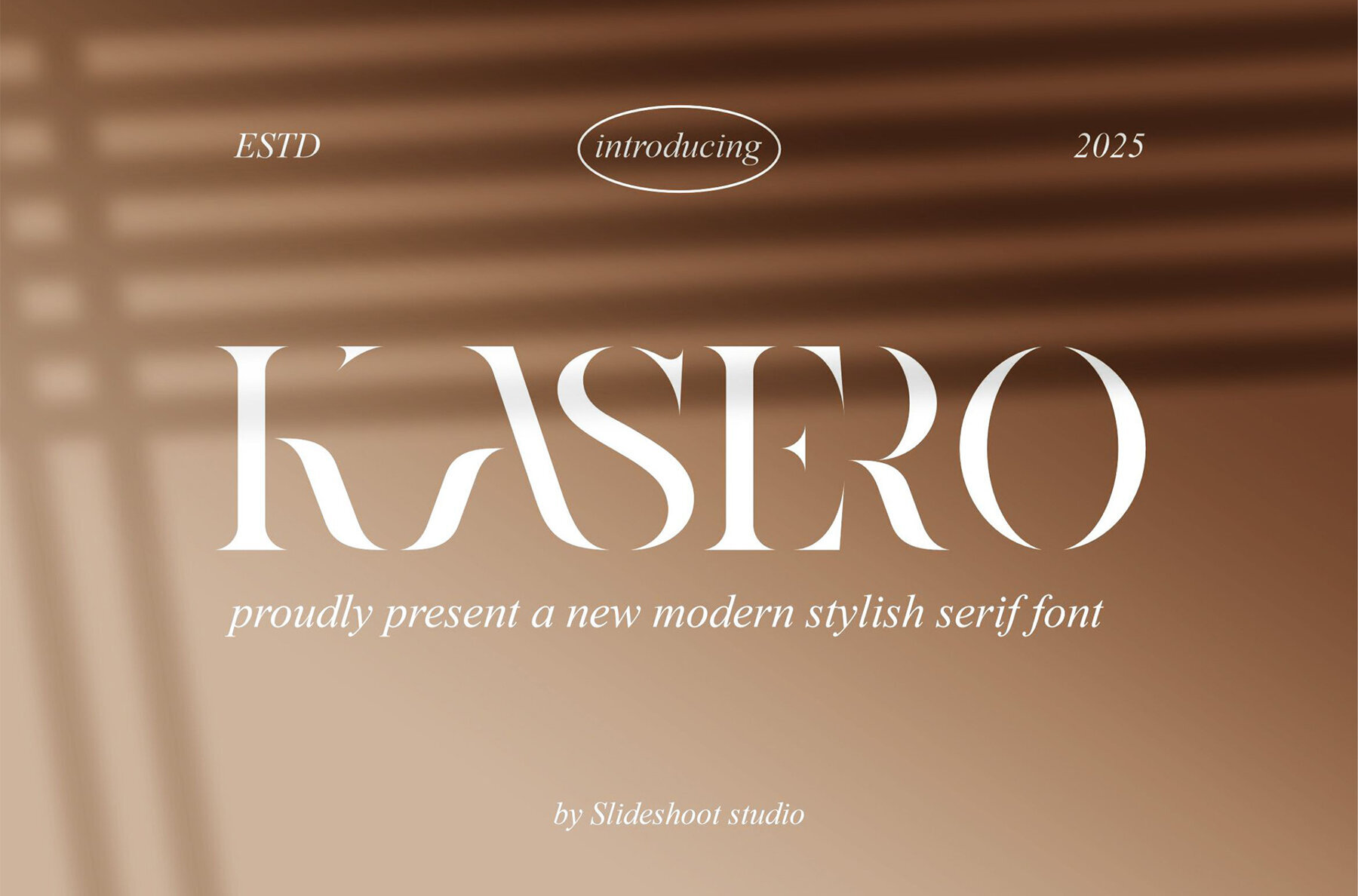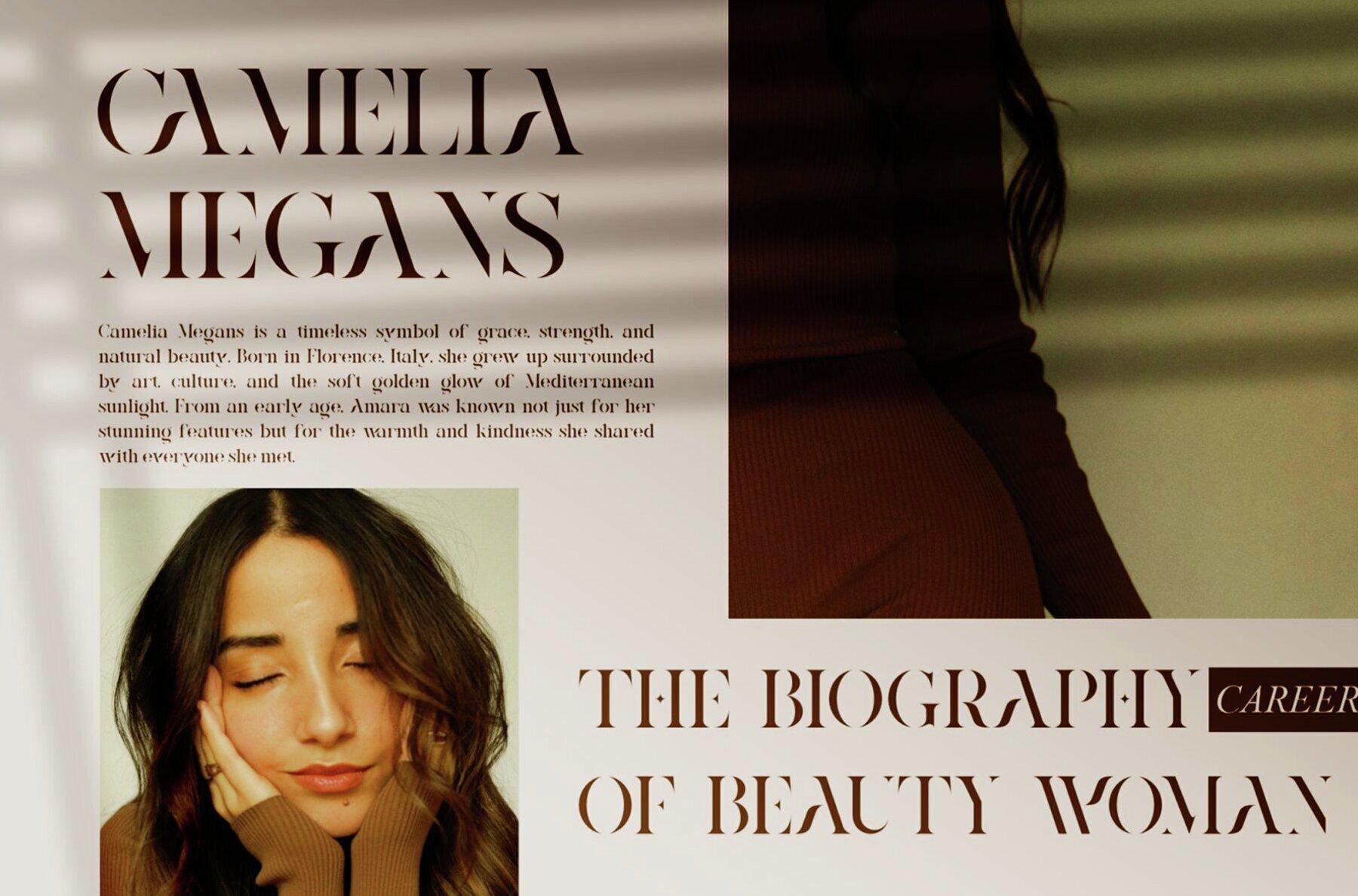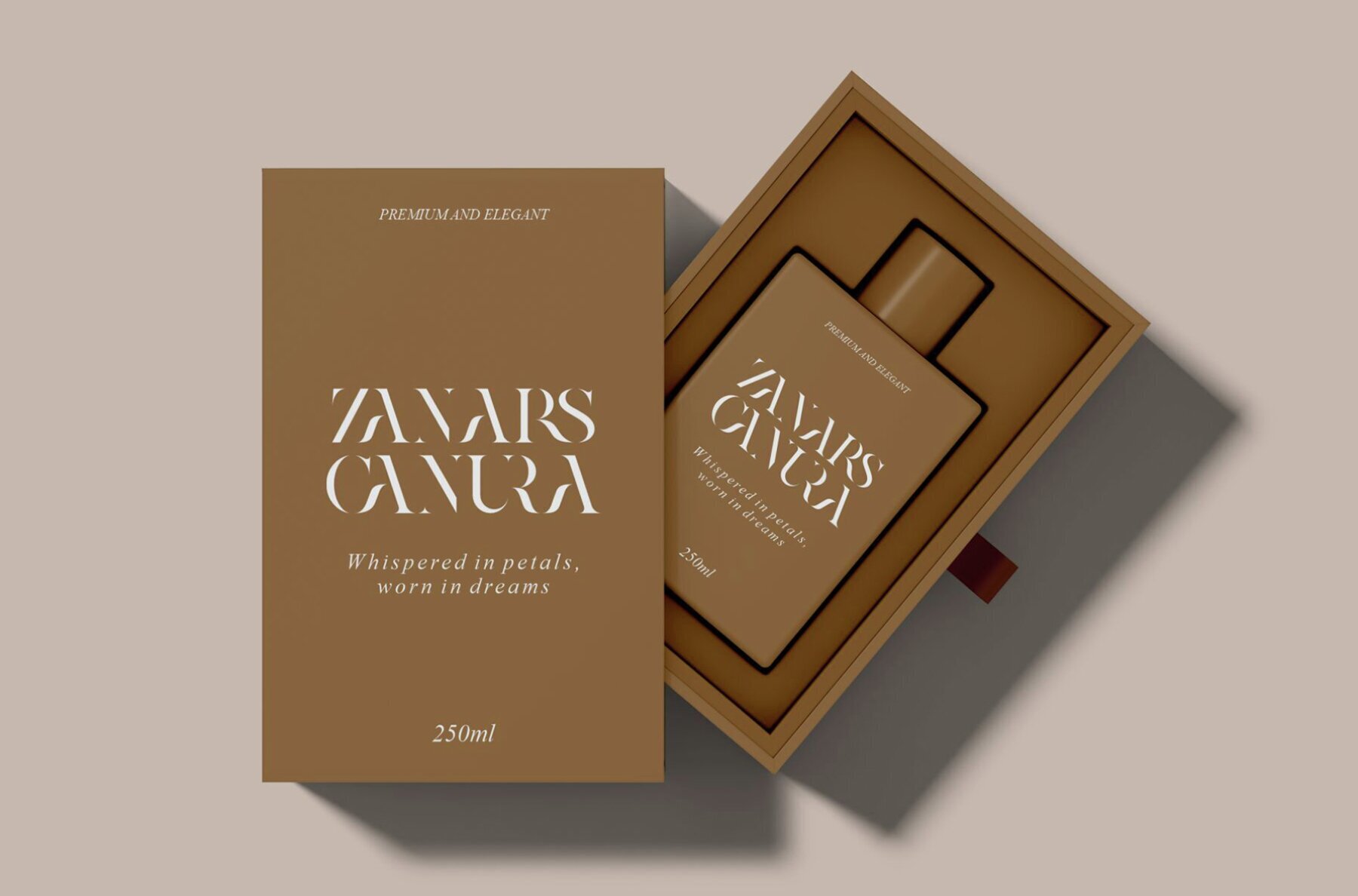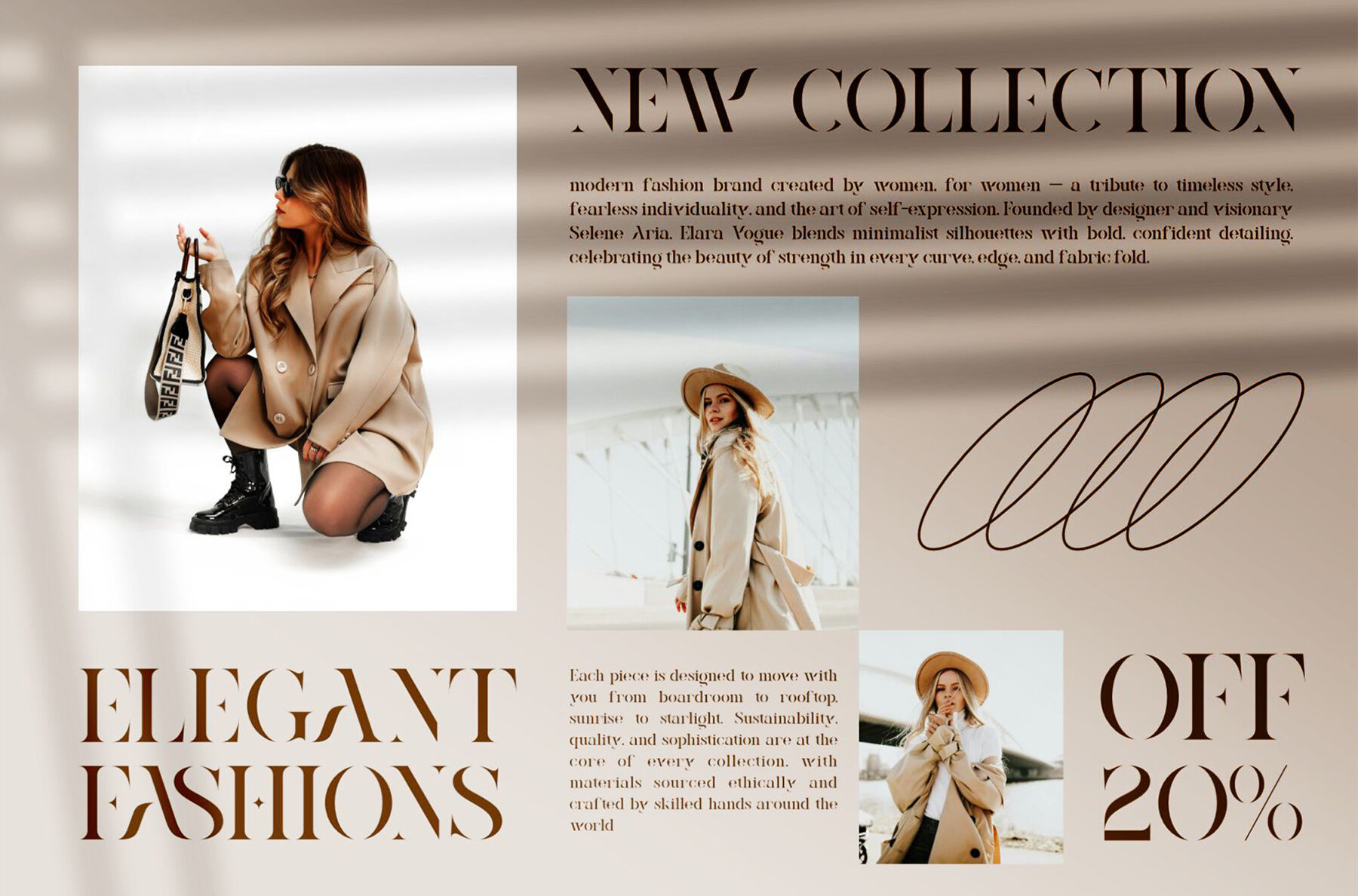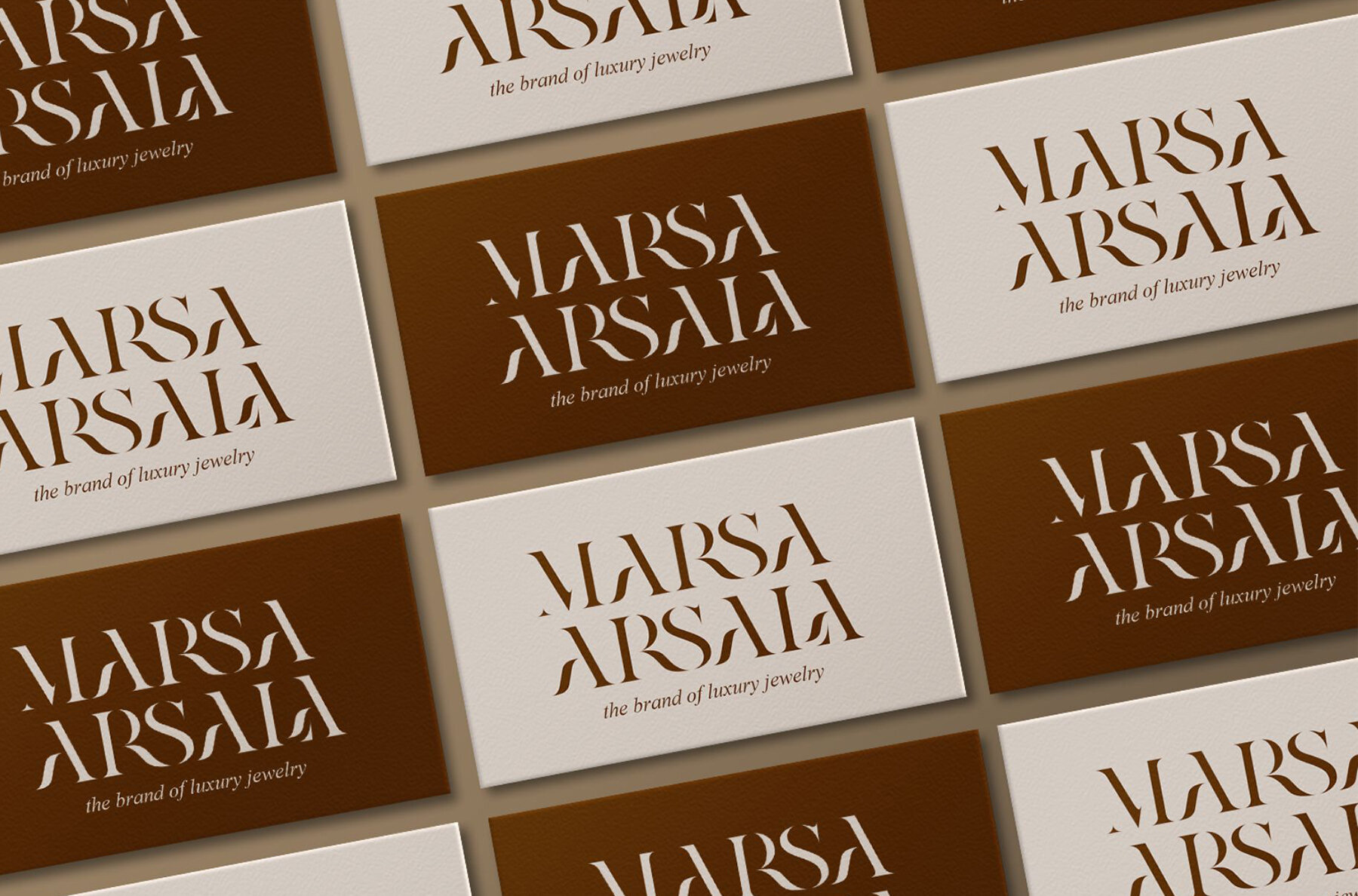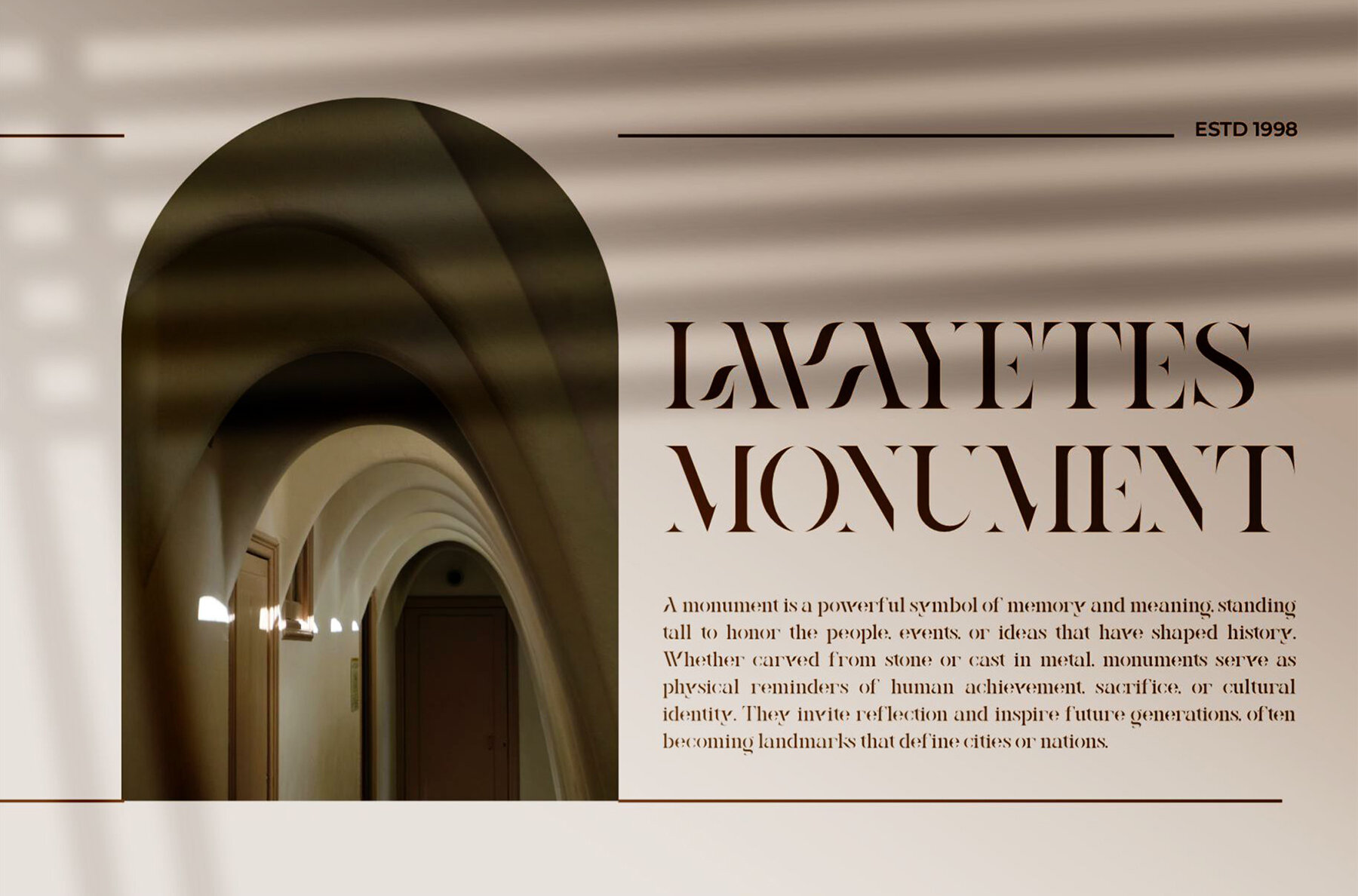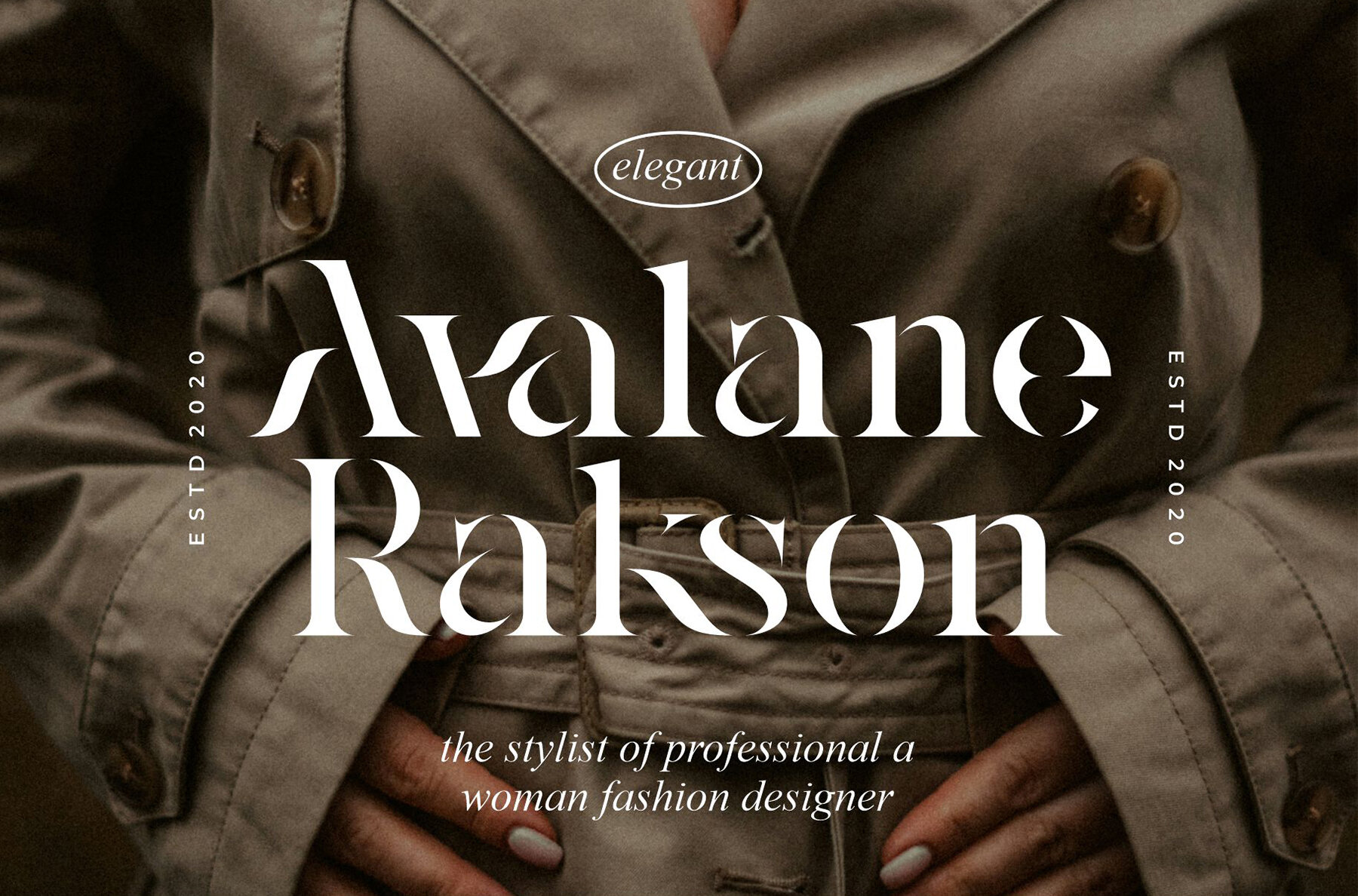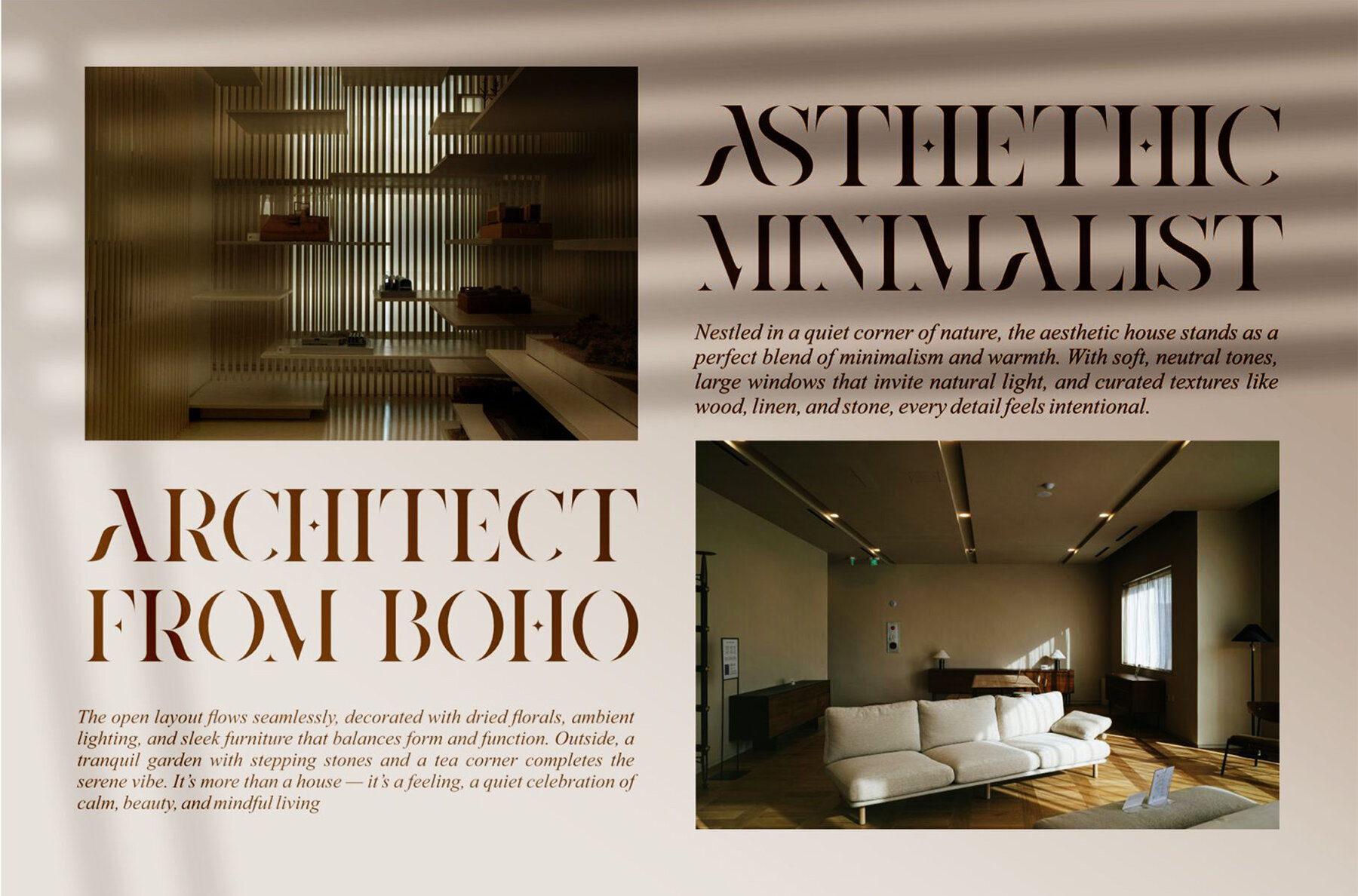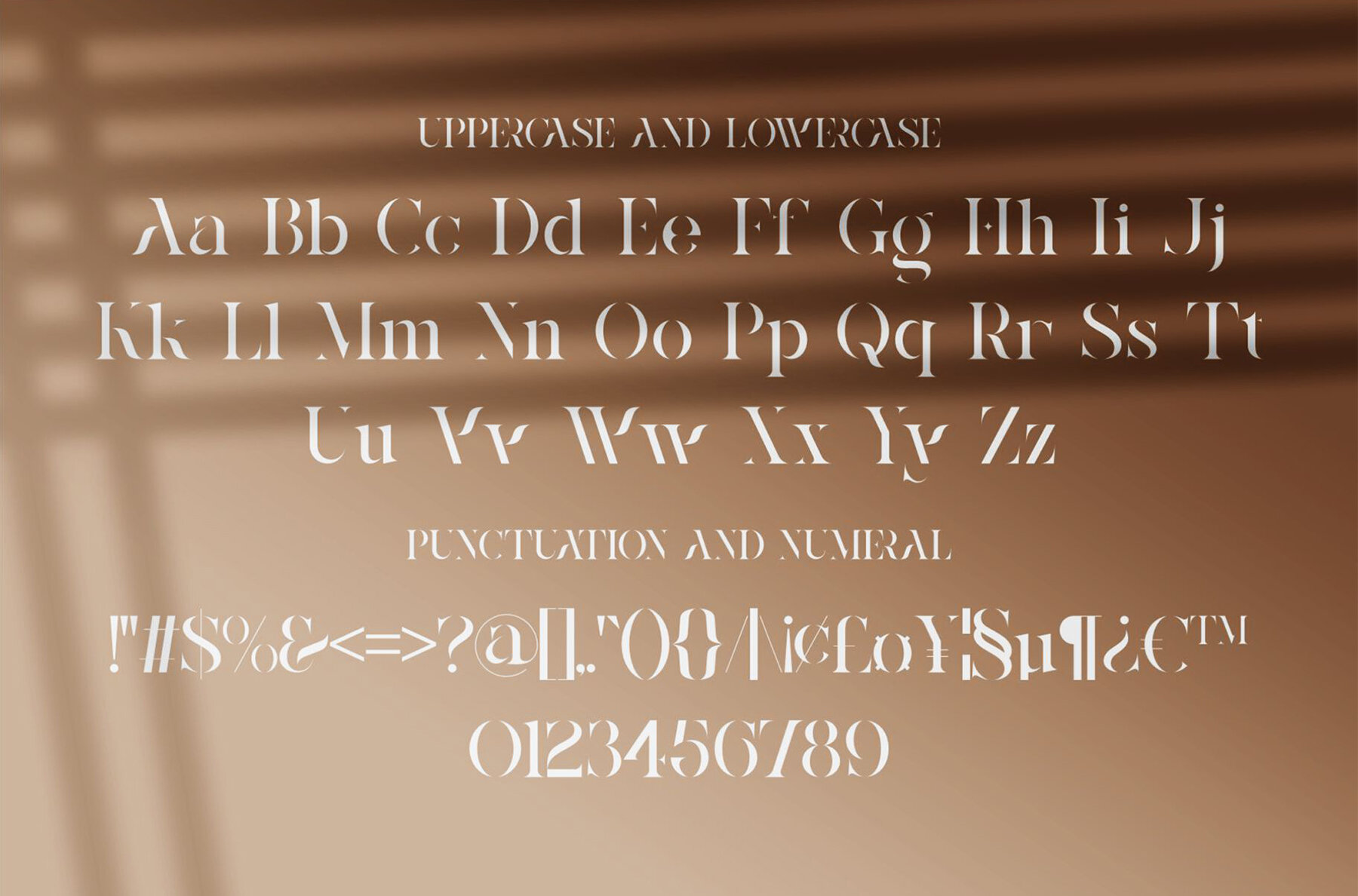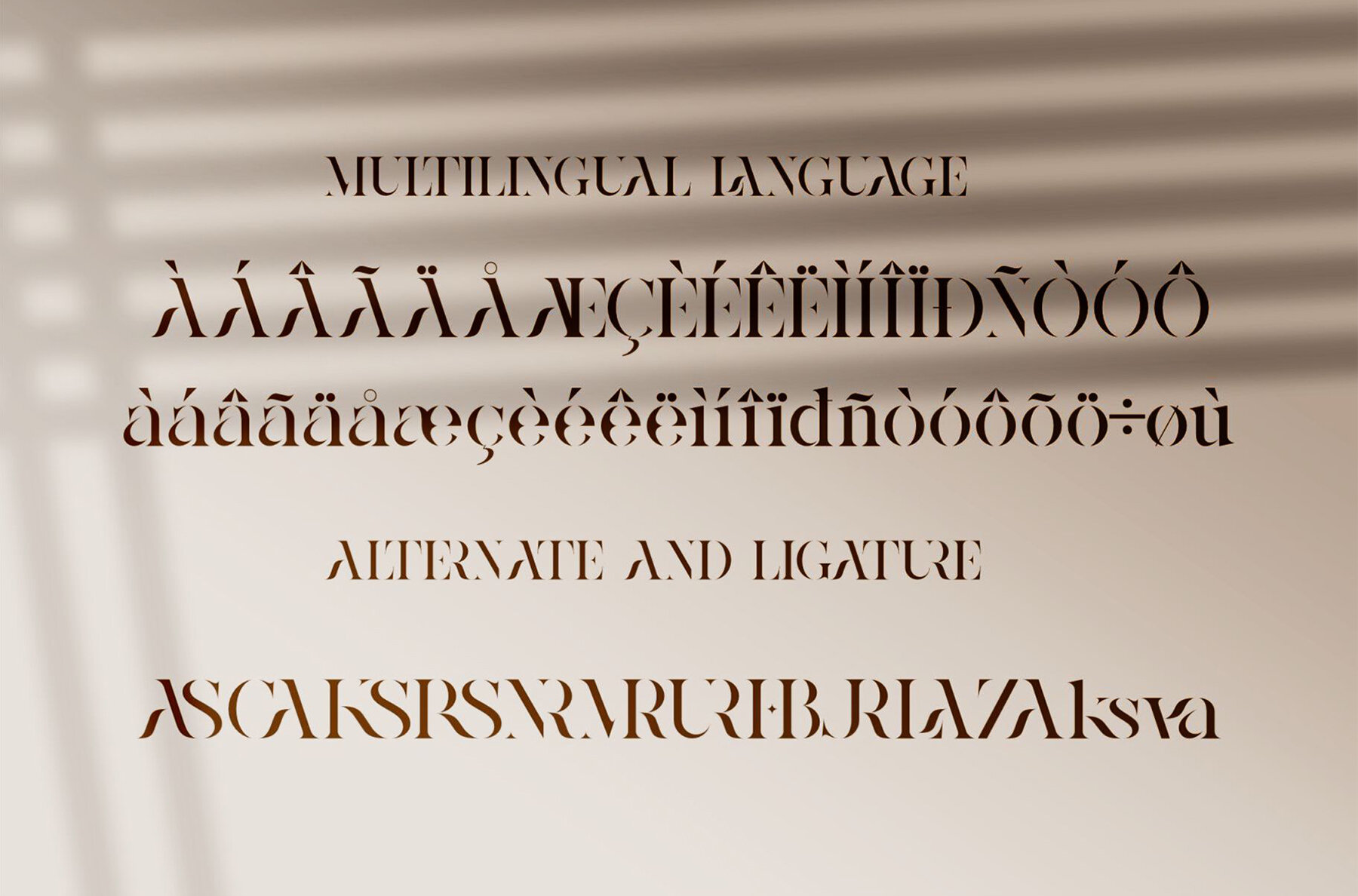
Kasero Font
Kasero Regular
Meet Kasero Stencil Serif, the embodiment of modern elegance and class for all your branding and logo needs. This serif typeface brings a touch of sophistication to every design with its exquisite character. Perfect for a wide range of creative projects—from chic invitation cards and cool logos to engaging movie titles and business cards—Kasero Stencil Serif consistently delivers style and impact. With its seamless design attributes, Kasero Stencil Serif is more than just a font—it's a statement of refinement and modern sophistication, perfect for bringing your creative visions to life.Kasero Stencil Serif Font